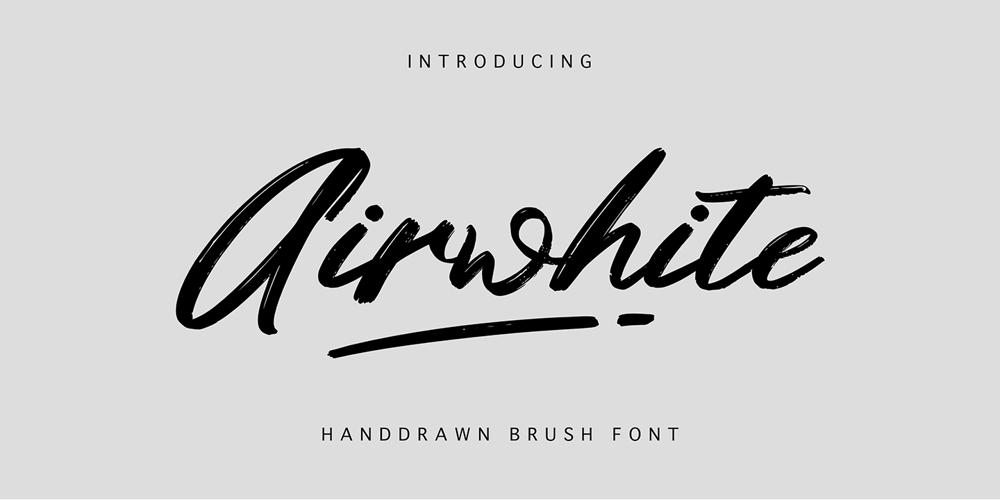
Airwhite Font Family was designed by Yusliana M Isa and published by Gian Studio. Airwhite contains 1 styles and family package options. Airwhite is the font have natural hand brushed strokes to give your project that ultra-realistic and natural look. Perfect for wall displays, branding project, megazine, social media post logos, advertisements, product designs, labels, photography and more. This font is PUA encoded which means you can access all of the glyphs and swashes with ease!Displayed fonts: Uppercase, Lowercase, Numbers, Symbols, Accents, Styles, Swashes and Ligatures also Multilingual SupportEnjoy the font, feel free to comment or feedback, send me a PM or email.Thank You!